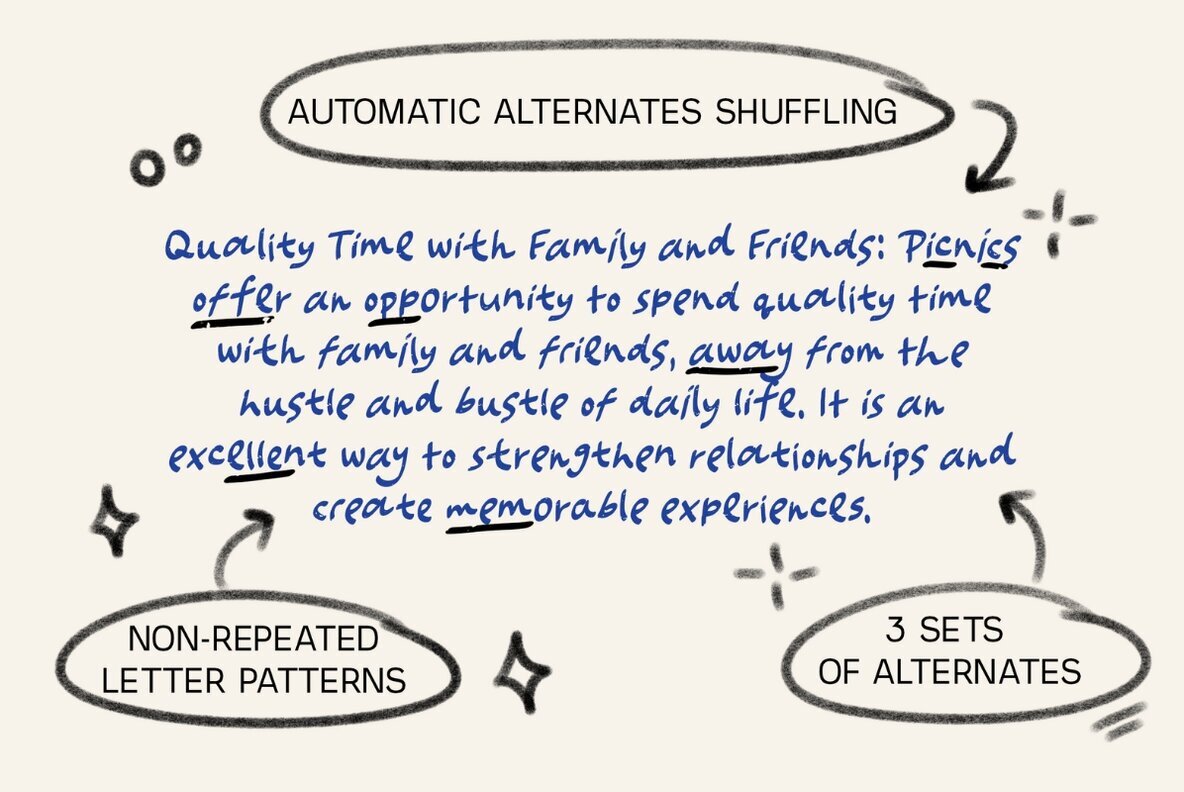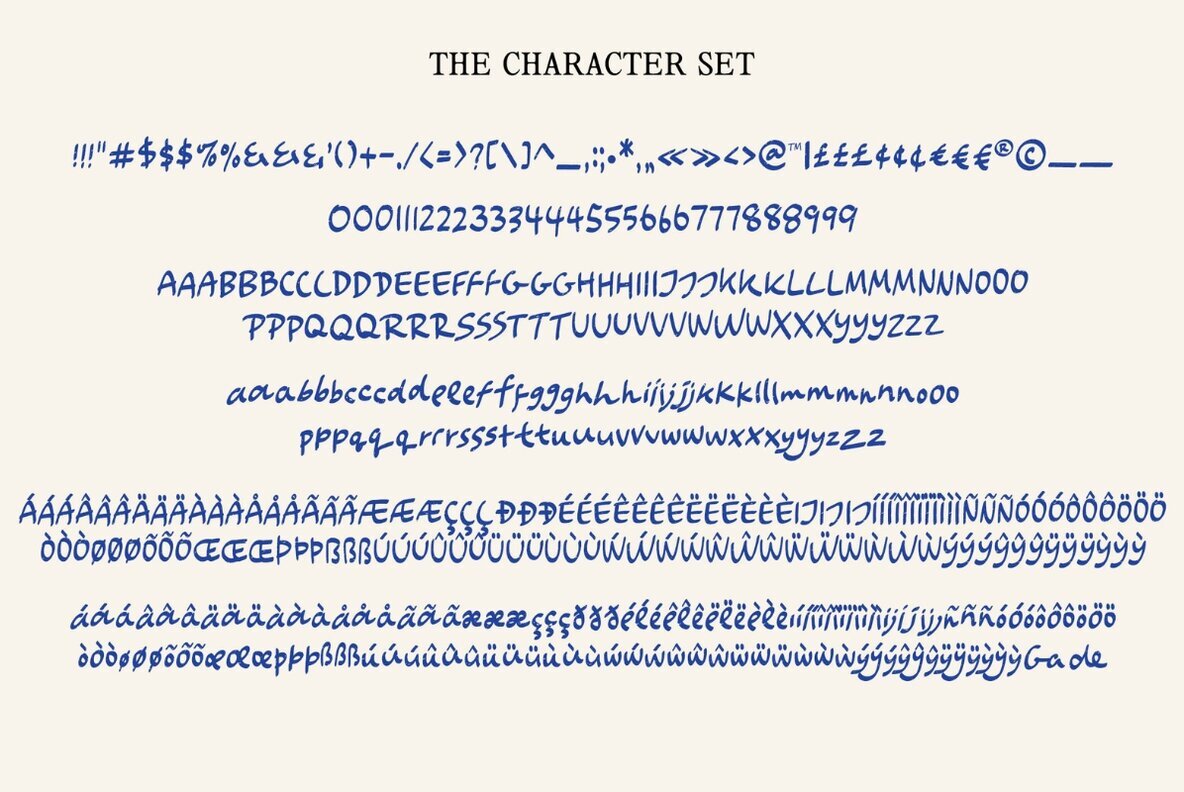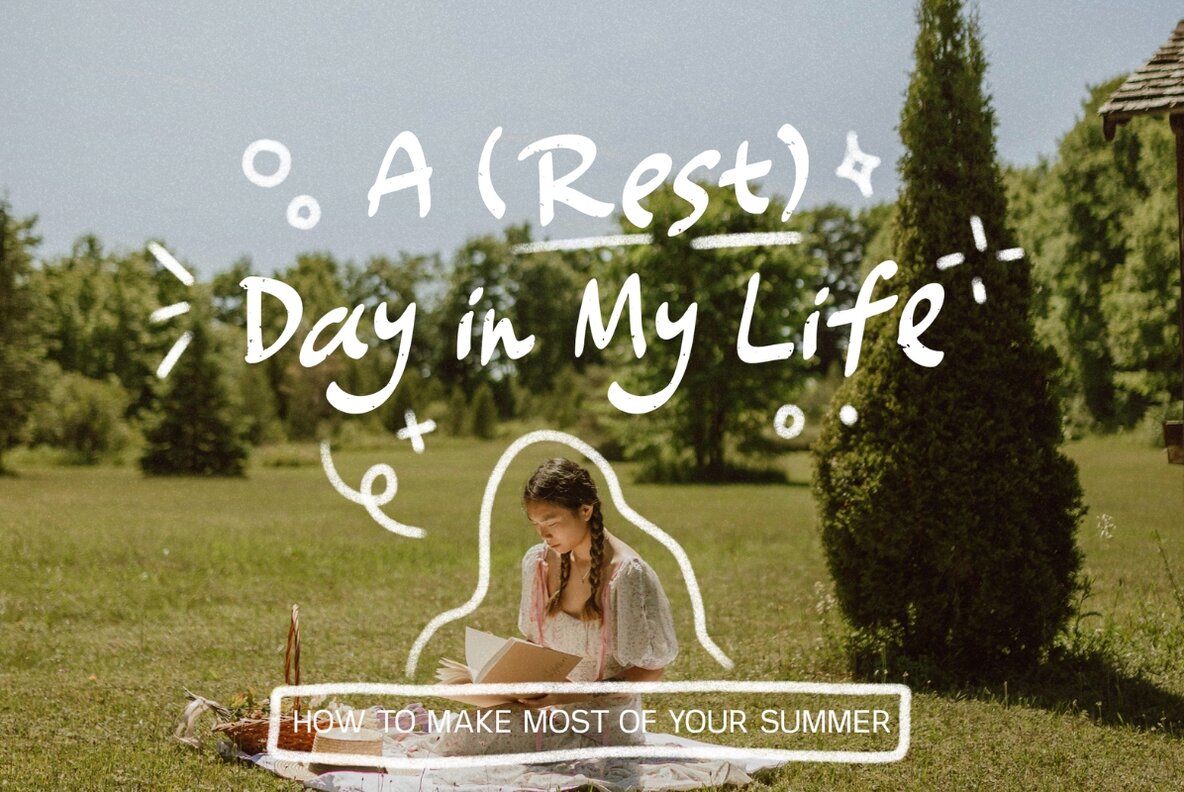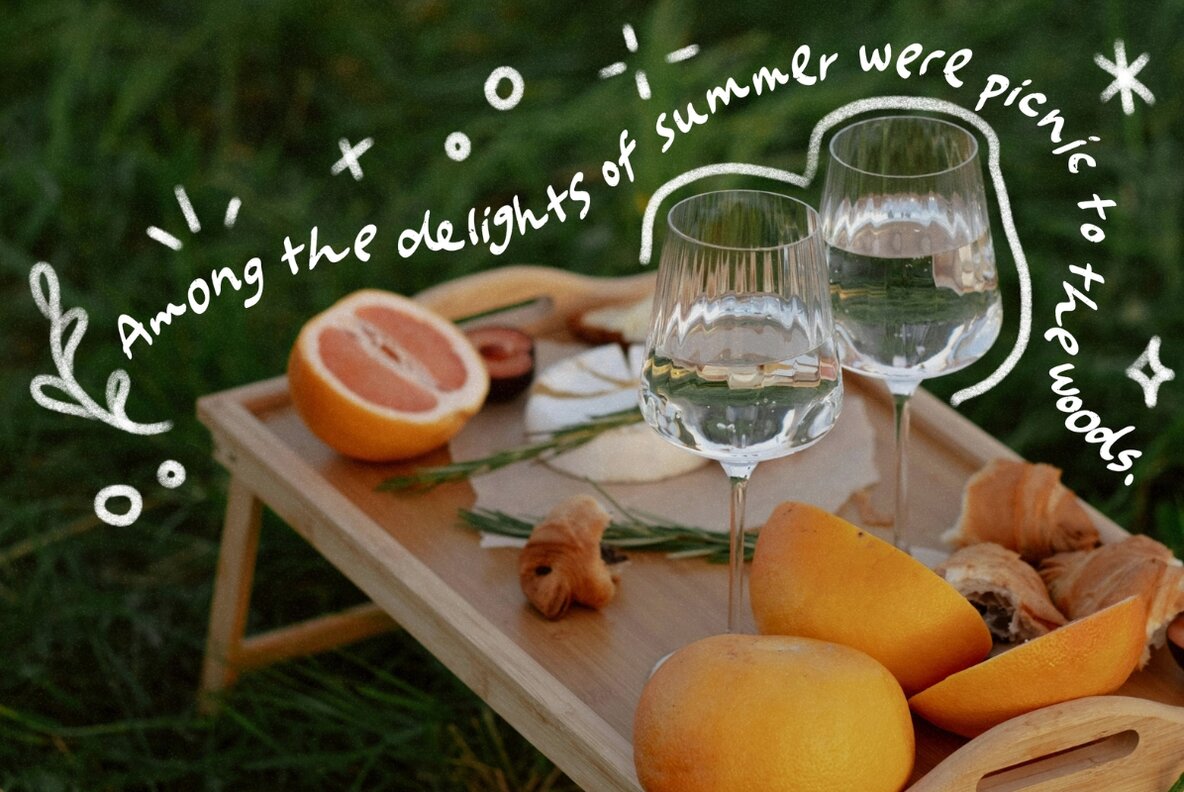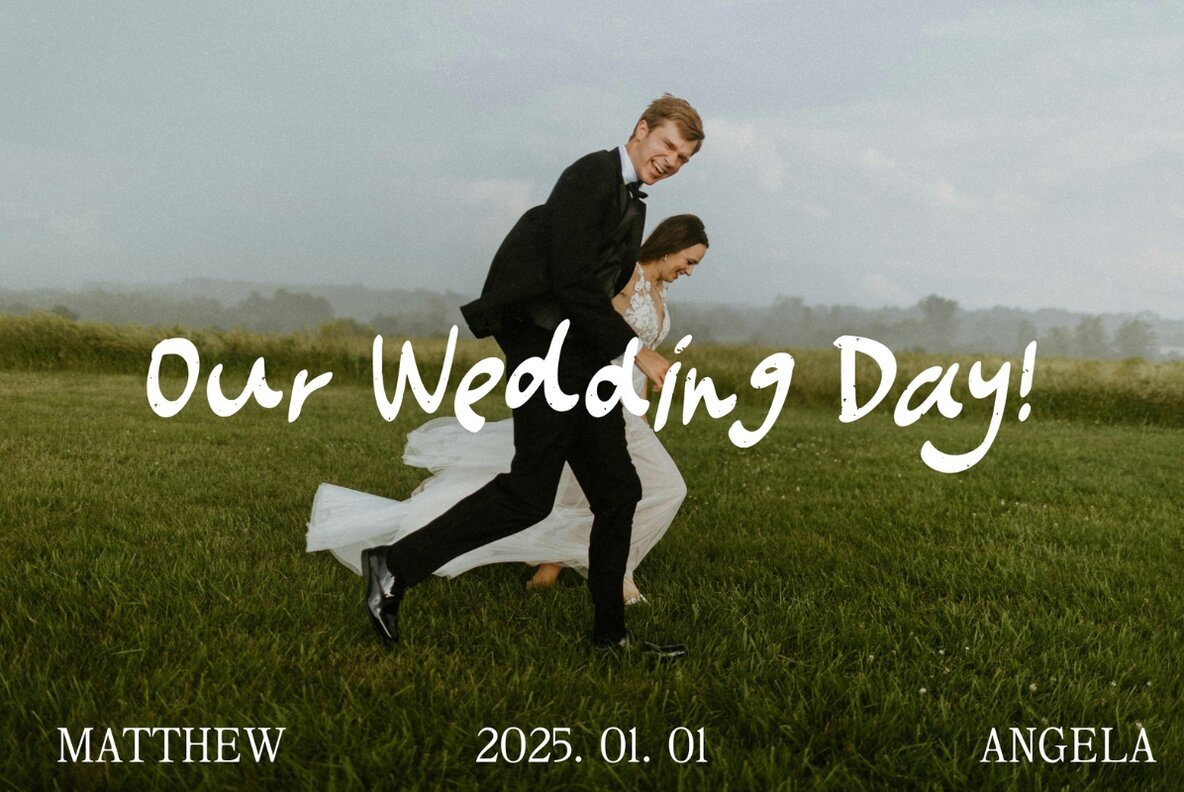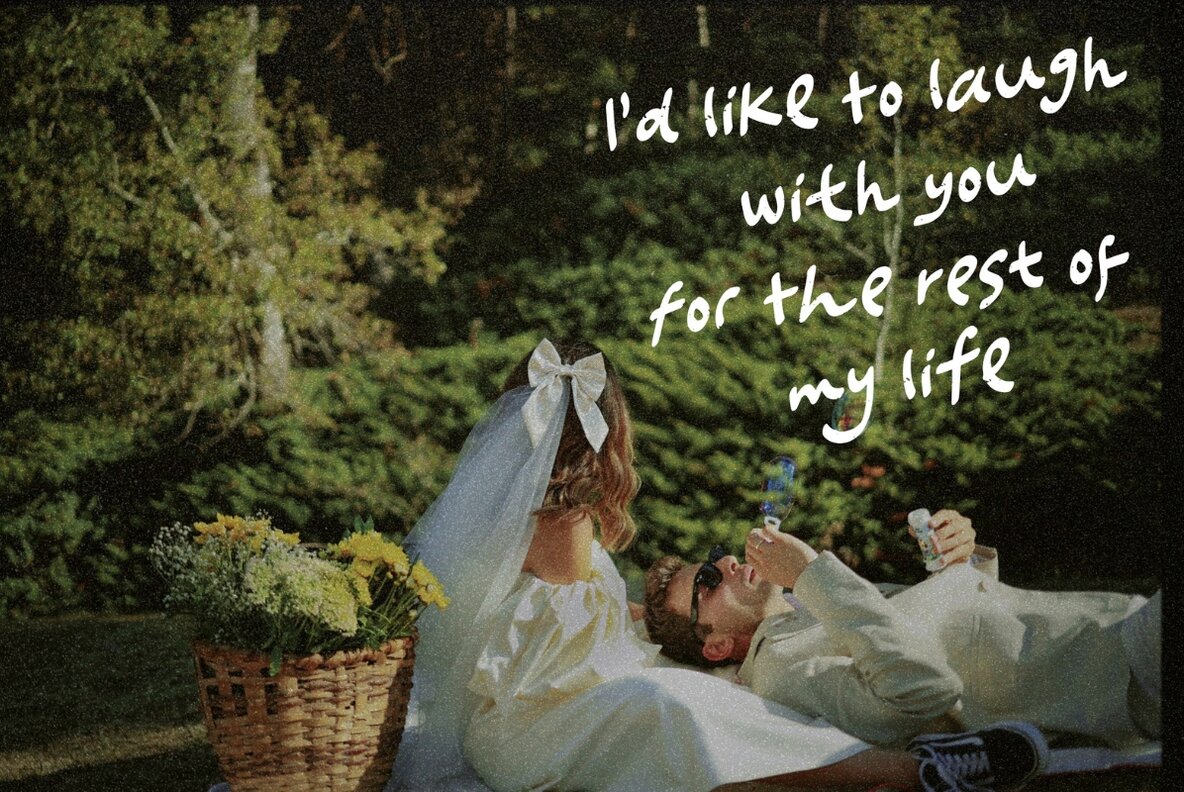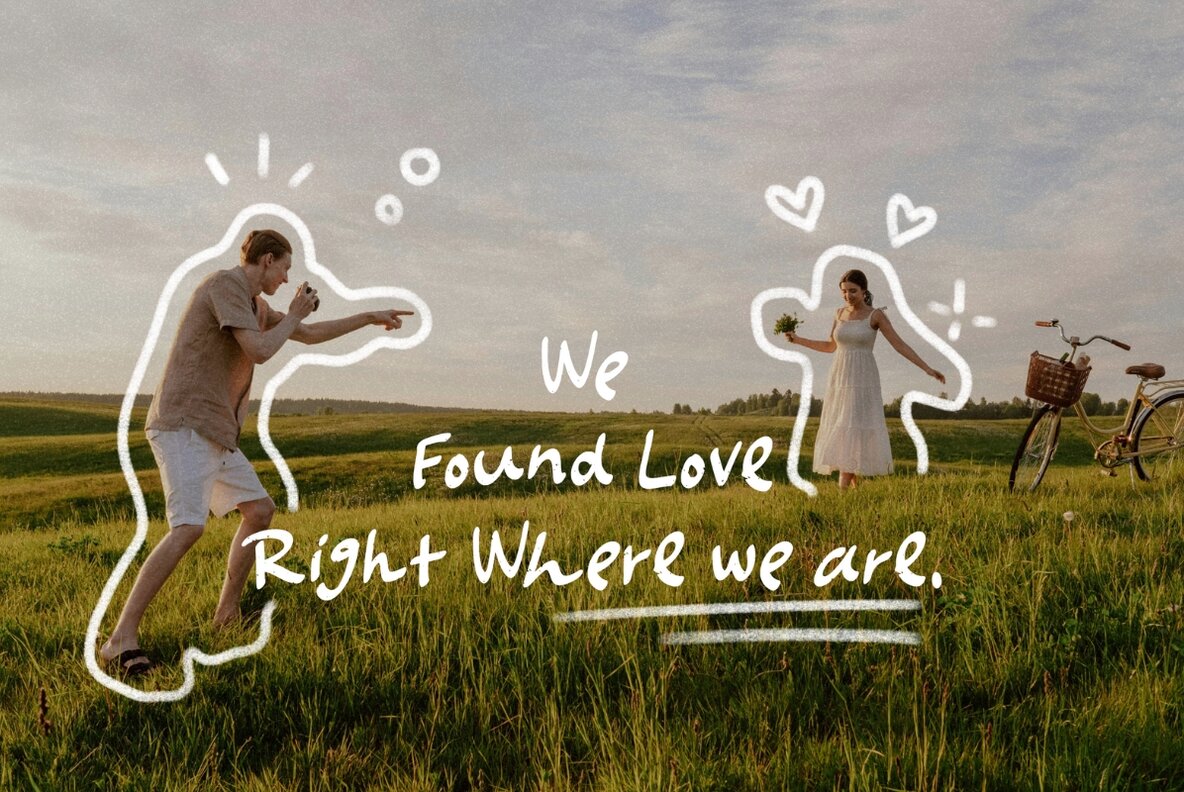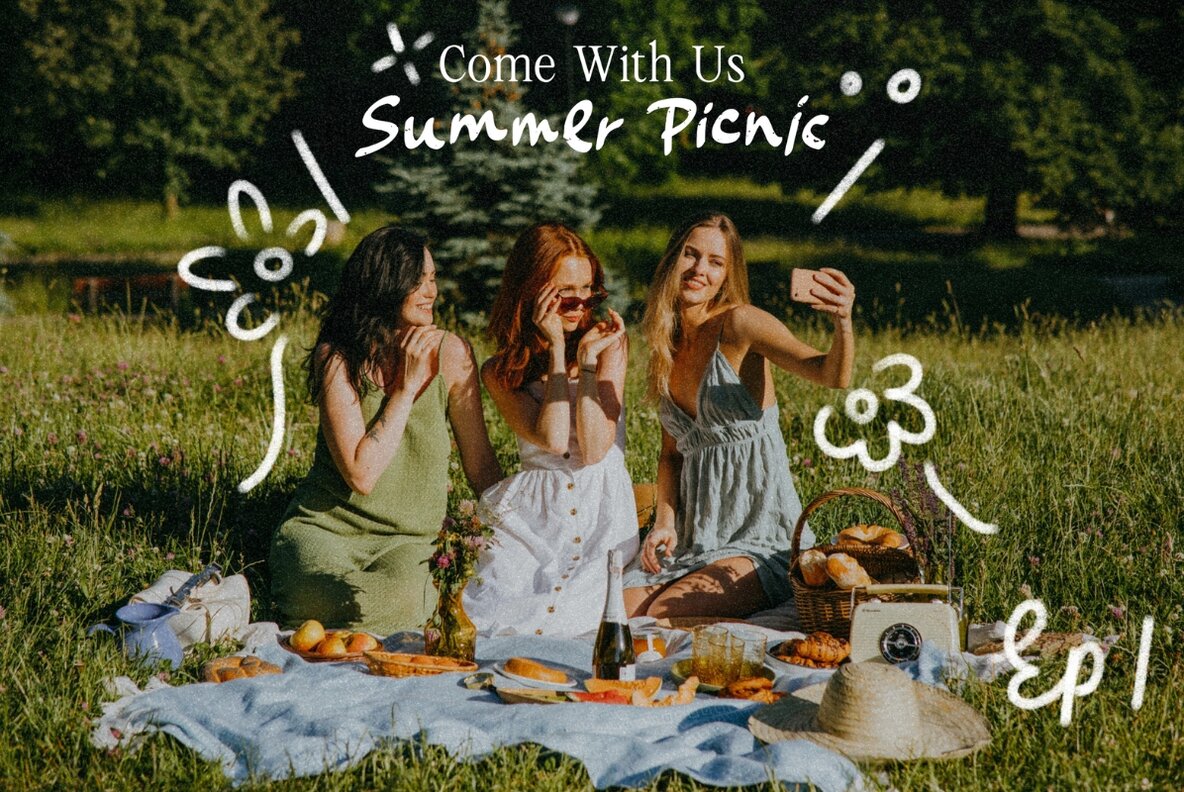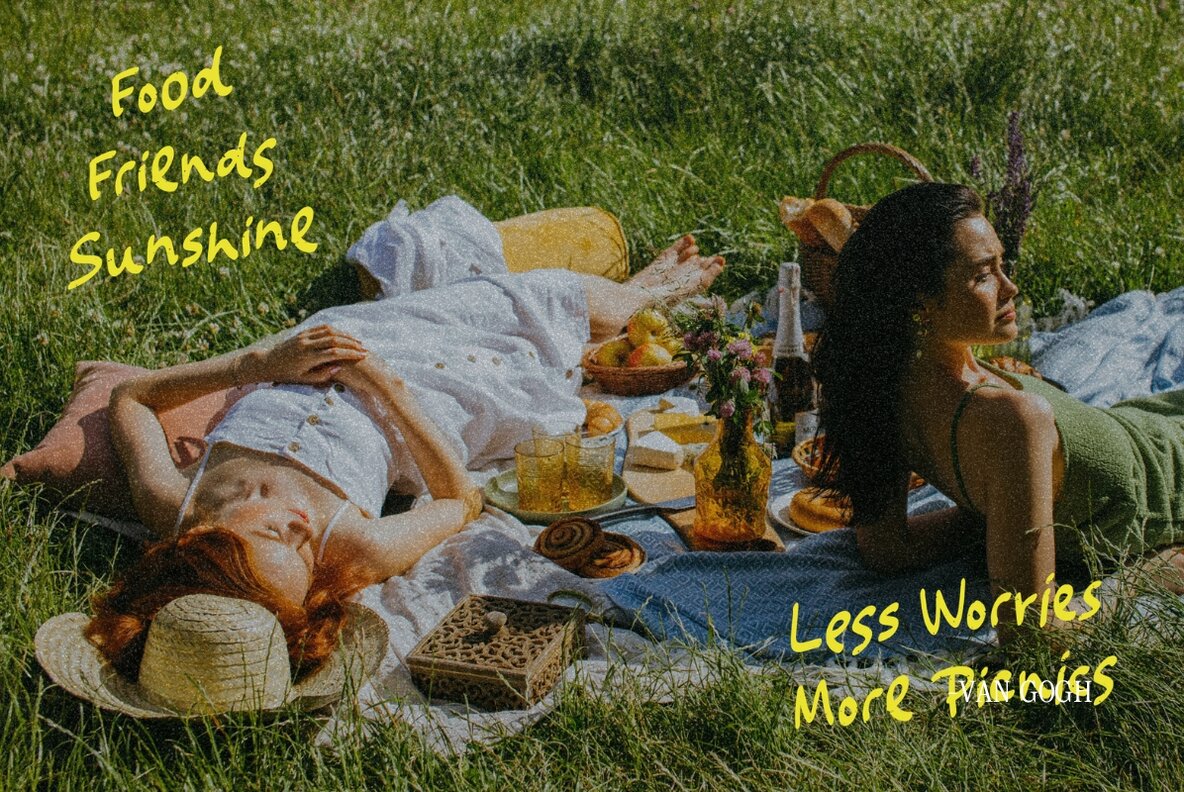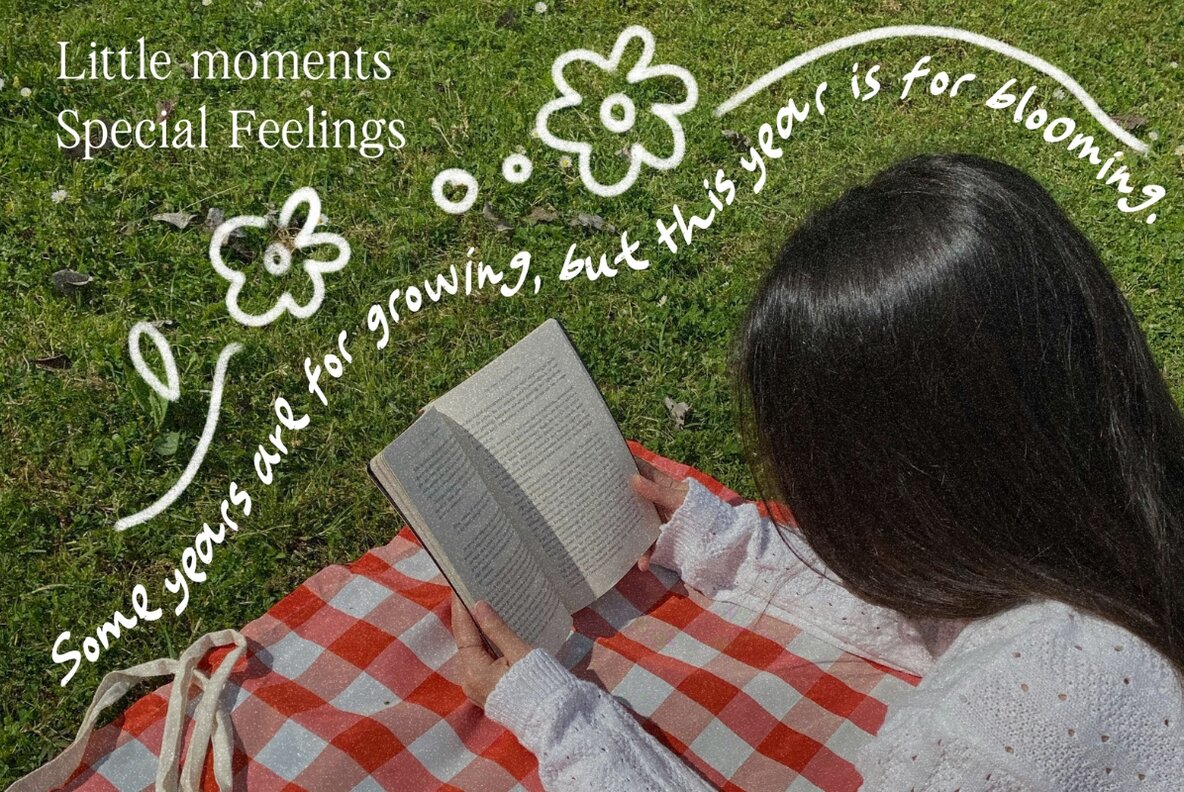
The Gardeny Font
The Gardeny Regular
Introducing "The Gardeny" – a graceful and romantic handwriting font meticulously crafted to enhance your special projects. Designed with a blend of elegance and whimsy, this font is perfect for wedding invitations, heartfelt letters, and any handcrafted endeavor that deserves a touch of personal charm. **NOTES:** The Automatic Alternates shuffling feature does not work on Canva, only the default character set will appear as you type.
Special Features: